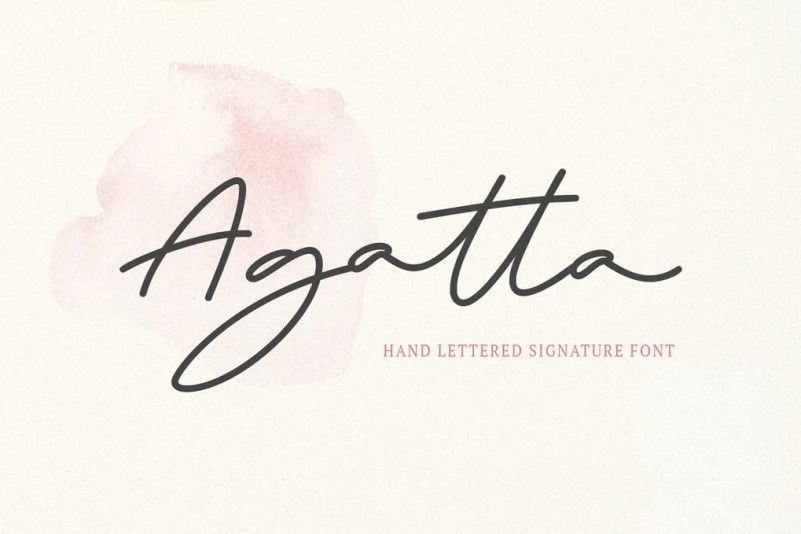
Agatta Font
Agatta is a signature style font with the vibe of real hand lettering. It is perfect for luxury brand, beauty brand, fashion, artist, blogging, social media, wedding invites, cards and more. Agatta comes with clean nodes and perfect anchor points that makes all glyphs curves smoother.
Agatta Font includes full set of gorgeous uppercase and lowercase Cyrillic and English letters, multilingual symbols, numerals, punctuation and ligatures.